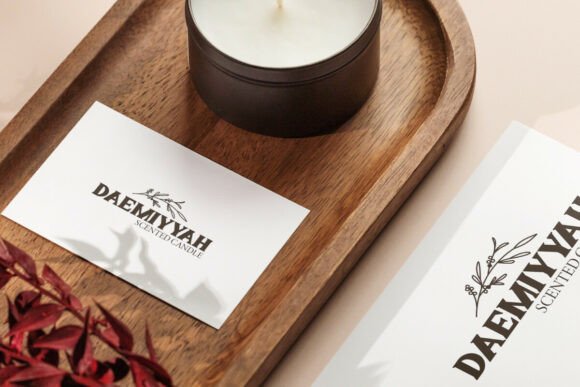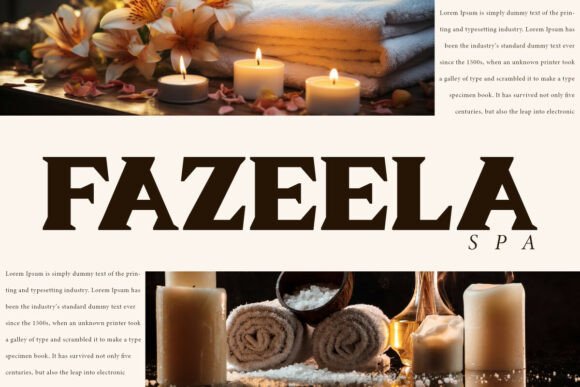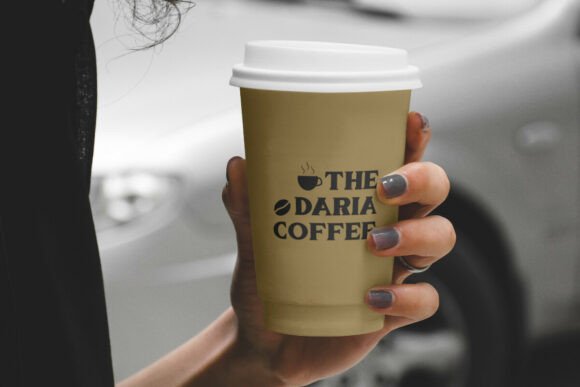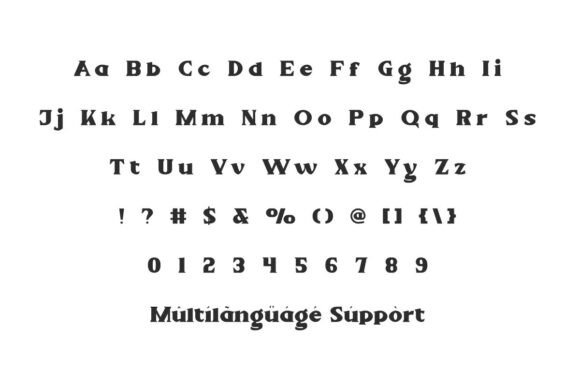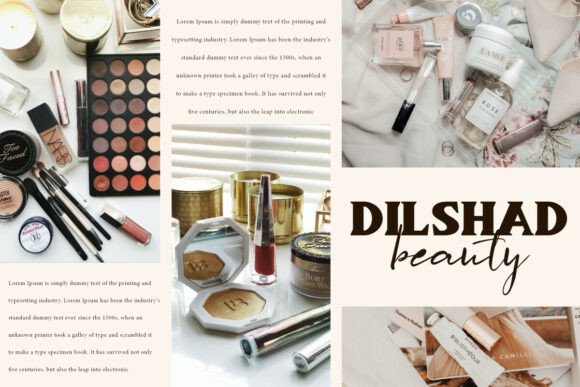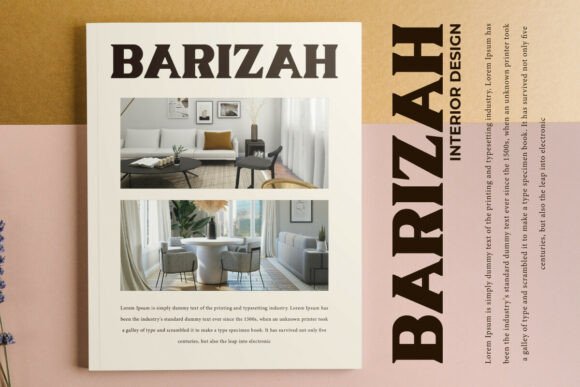
Introduction to Last Cheers Font
As a designer, there’s nothing quite like the thrill of landing on the perfect font for a creative project. It’s that moment when the words on the page come alive, and the entire design falls into place. But with so many fonts out there, how do you know which one will elevate your work to the next level? For many designers, the answer lies in the versatile and elegant Last Cheers Font.
With its unique blend of clean lines and bold character, Last Cheers Font is the perfect choice for creatives who value high-quality design resources that can be tailored to any project. Whether you’re working on a logo design, magazine cover, or website, this font is sure to add a touch of sophistication and style. And the best part? Last Cheers Font is available for free download, making it an invaluable addition to any designer’s toolkit.
But what sets Last Cheers Font apart from other design resources? Its seamless style pairing and transparent background make it a joy to work with, allowing designers to focus on the creative process rather than getting bogged down in technical details.
Last Cheers Font
- Unique, modern design with clean lines and elegant typography
- Perfect for digital and print applications, including logos, signage, and graphics
Honest Review: Last Cheers Font
I recently stumbled upon the Last Cheers Font, a free design resource that’s quickly become a staple in my creative project toolbox. One of the standout features of this font is its unique blend of modern and vintage elements, making it perfect for a wide range of design applications.
One of the things that works well with the Last Cheers Font is its high-quality design. The font is crisp and clear, even at larger sizes, and the transparent background allows for easy layering and customization.
- ✨ Unique blend of modern and vintage elements
- ✨ High-quality design, even at larger sizes
However, there are a few limitations to consider. The font only includes a limited number of styles, which may limit its versatility for some designers.
- ⚠️ Limited number of font styles
- ⚠️ May not be suitable for complex or high-traffic design projects
Overall, I’m impressed with the Last Cheers Font and would recommend it to designers looking for a high-quality, unique font for their creative projects. With a little creativity and experimentation, this font has the potential to elevate even the most basic designs to the next level.
Tips for Getting the Most Out of the Last Cheers Font
When using the Last Cheers Font, consider pairing it with a transparent background to create a clean and modern design. You can also experiment with different font sizes and colors to achieve the desired effect. Additionally, be sure to download the font in high quality to ensure optimal results.
The Last Cheers Font is perfect for a variety of creative projects, including graphics, posters, and social media designs. It’s also great for adding a touch of personality to your presentations and documents. With its high-quality design and transparent background, the Last Cheers Font is a valuable design resource that’s sure to impress.